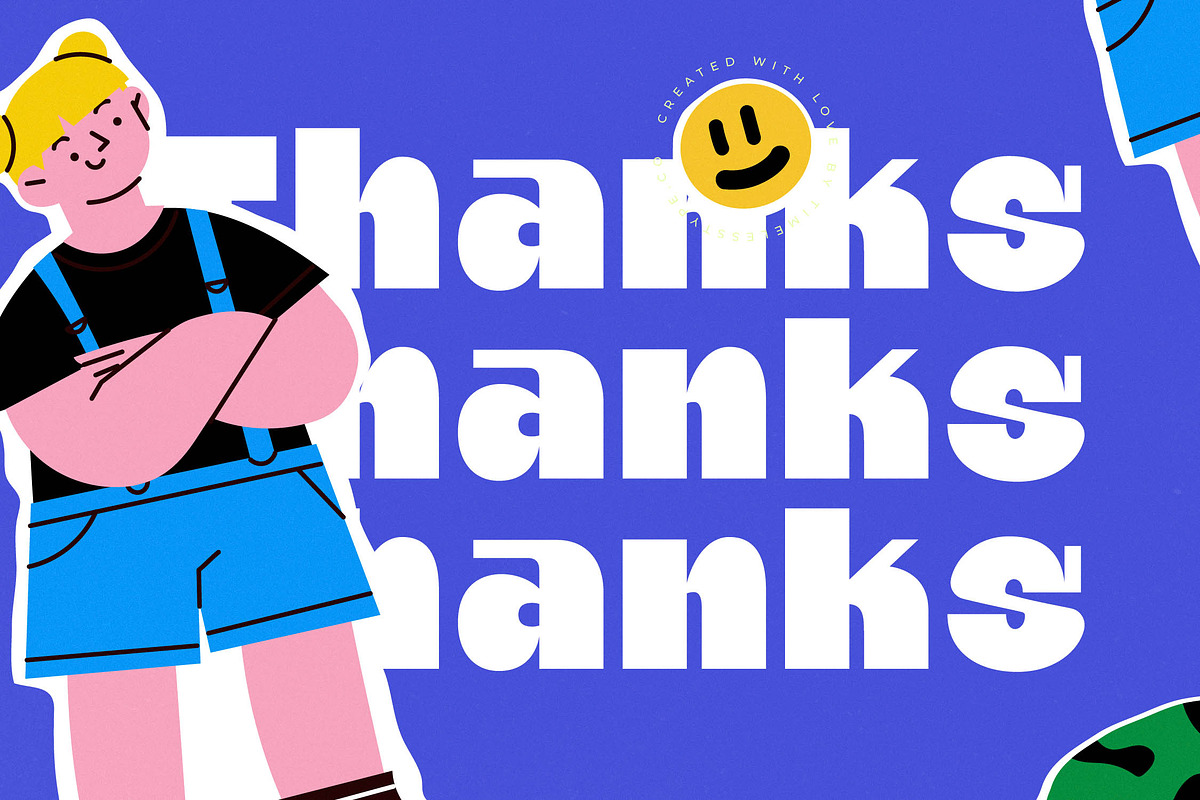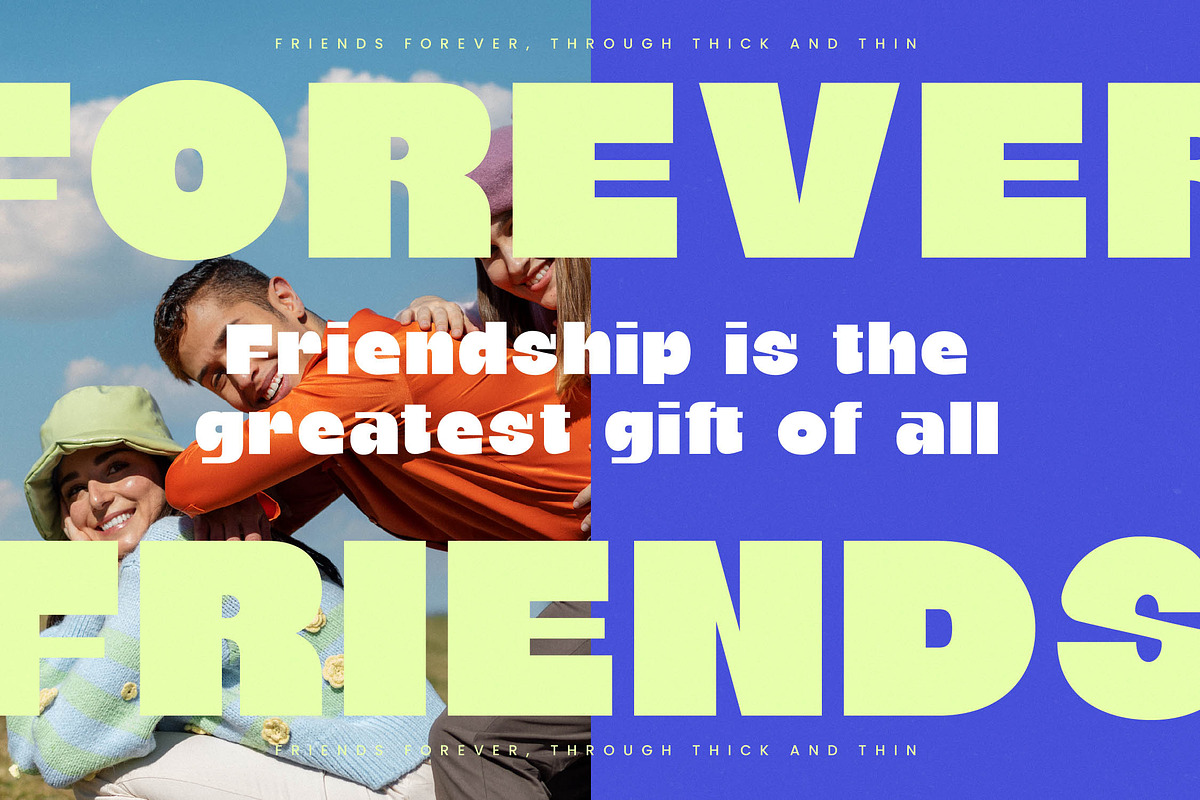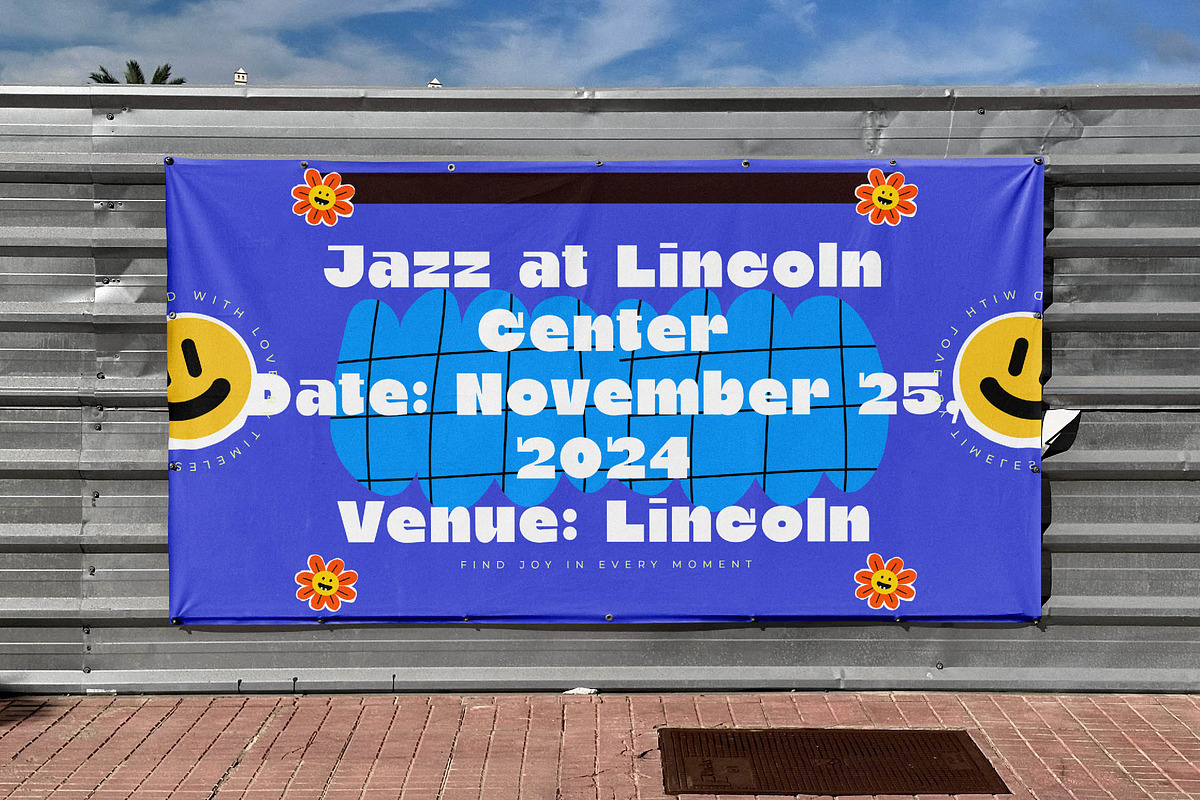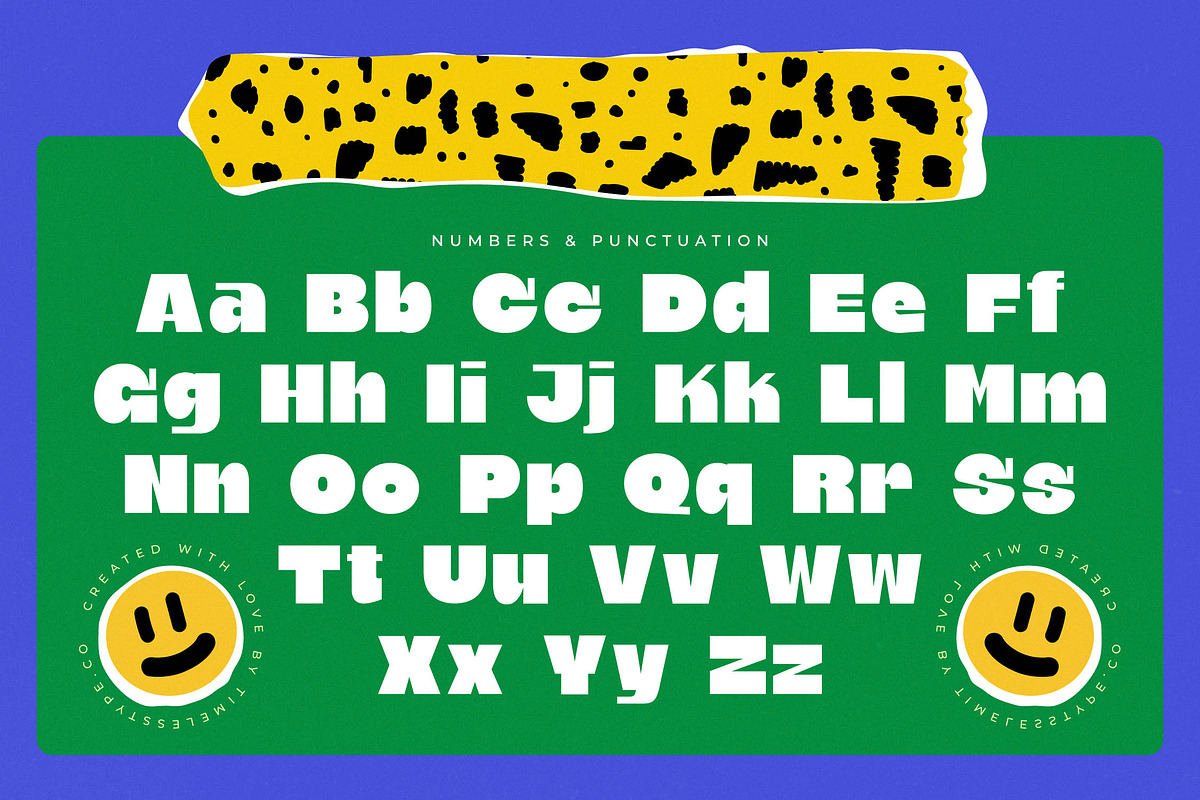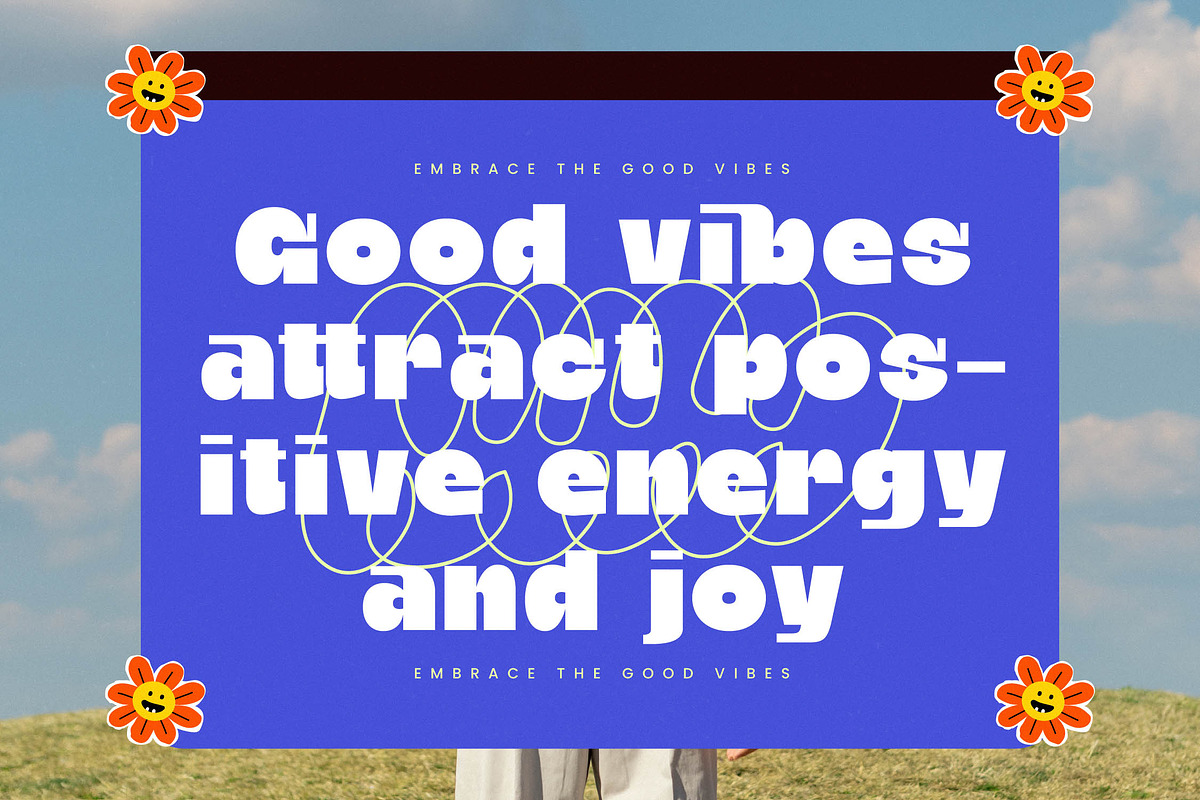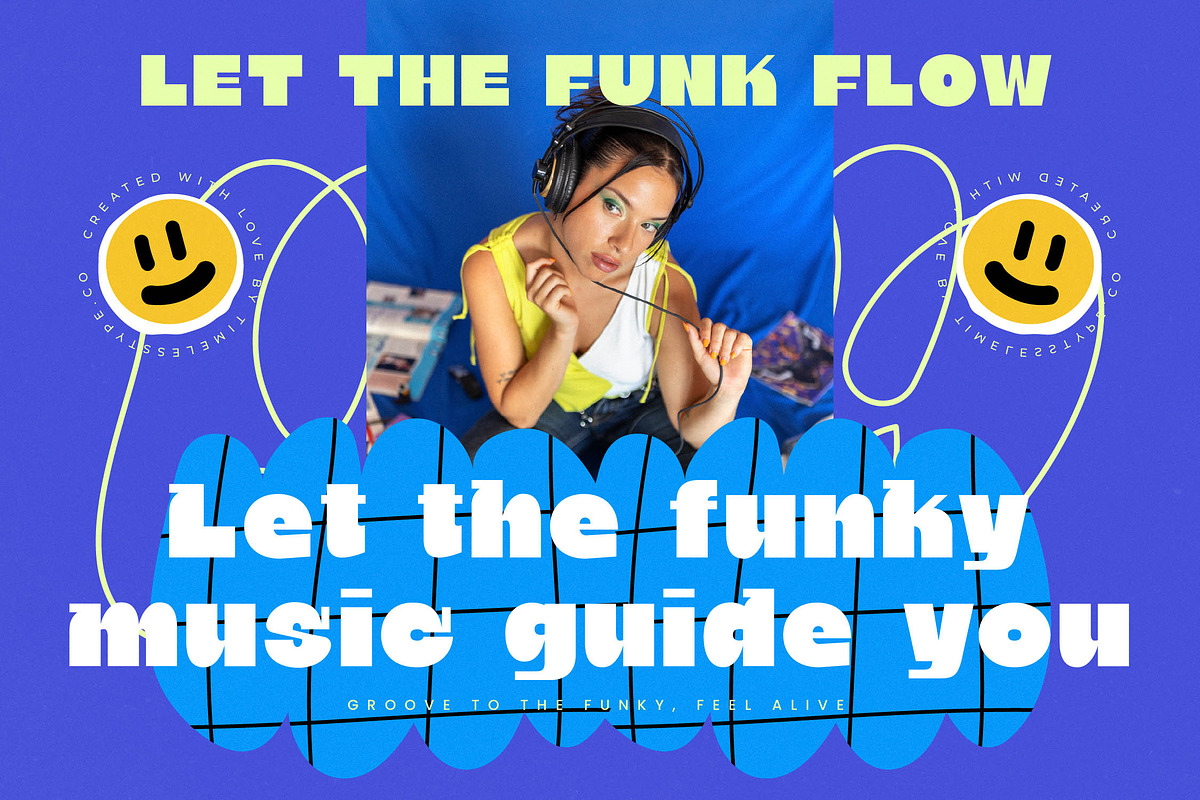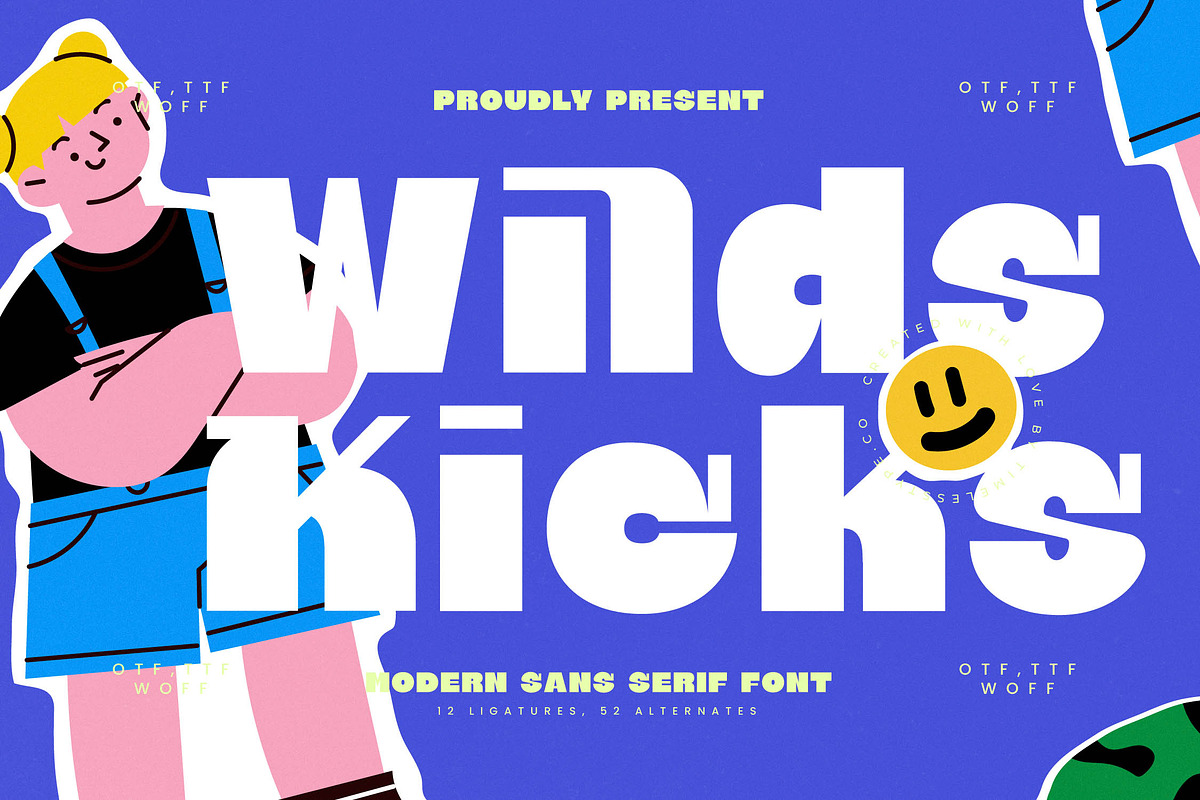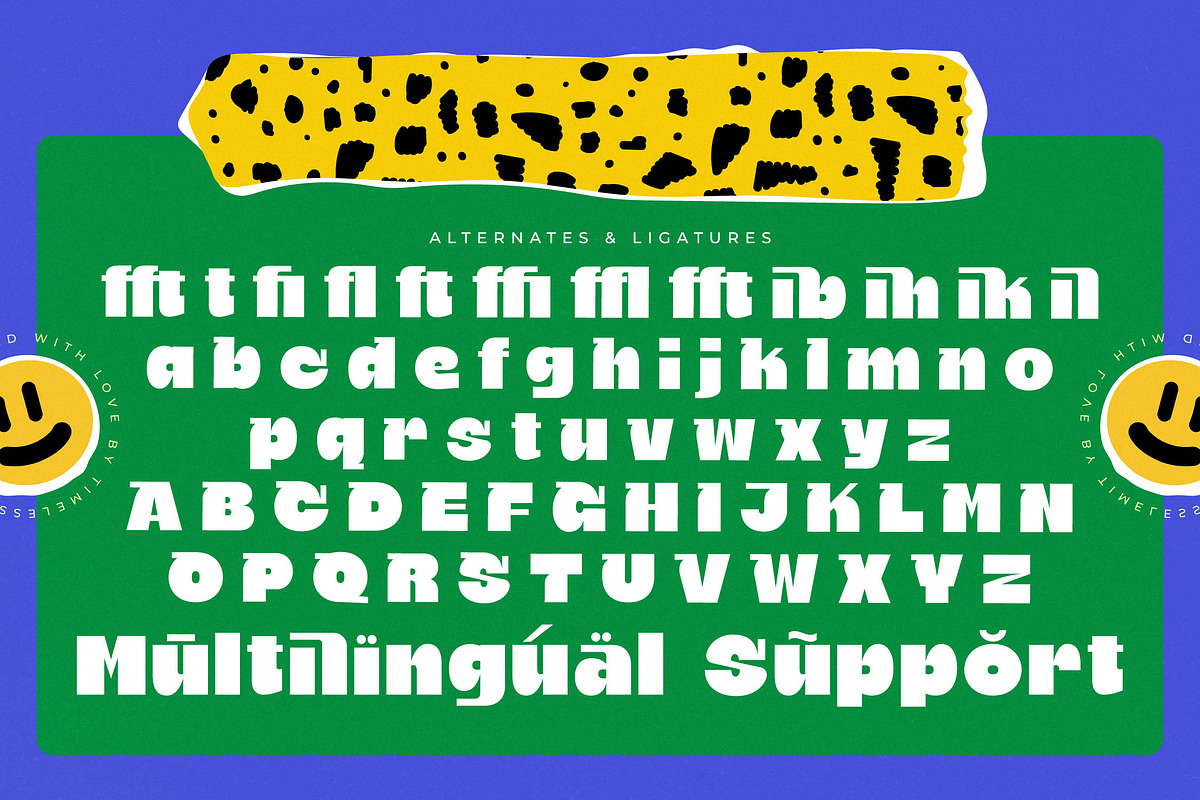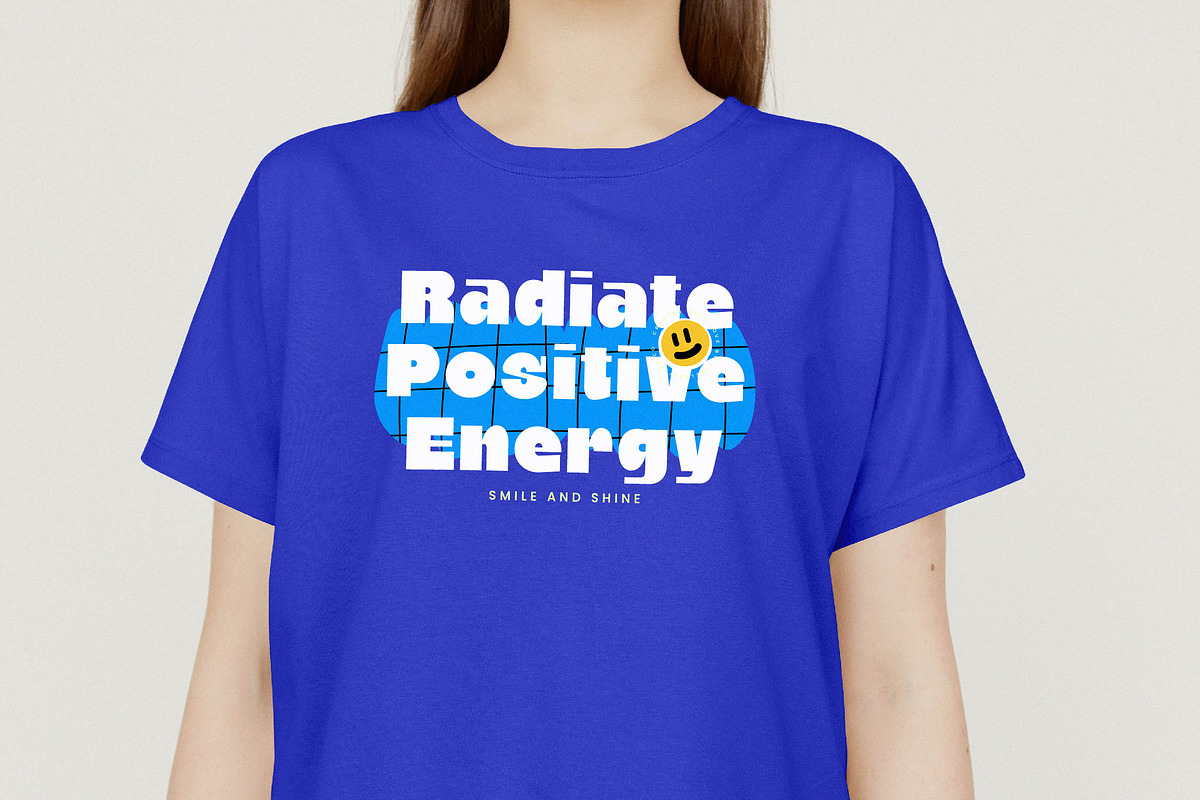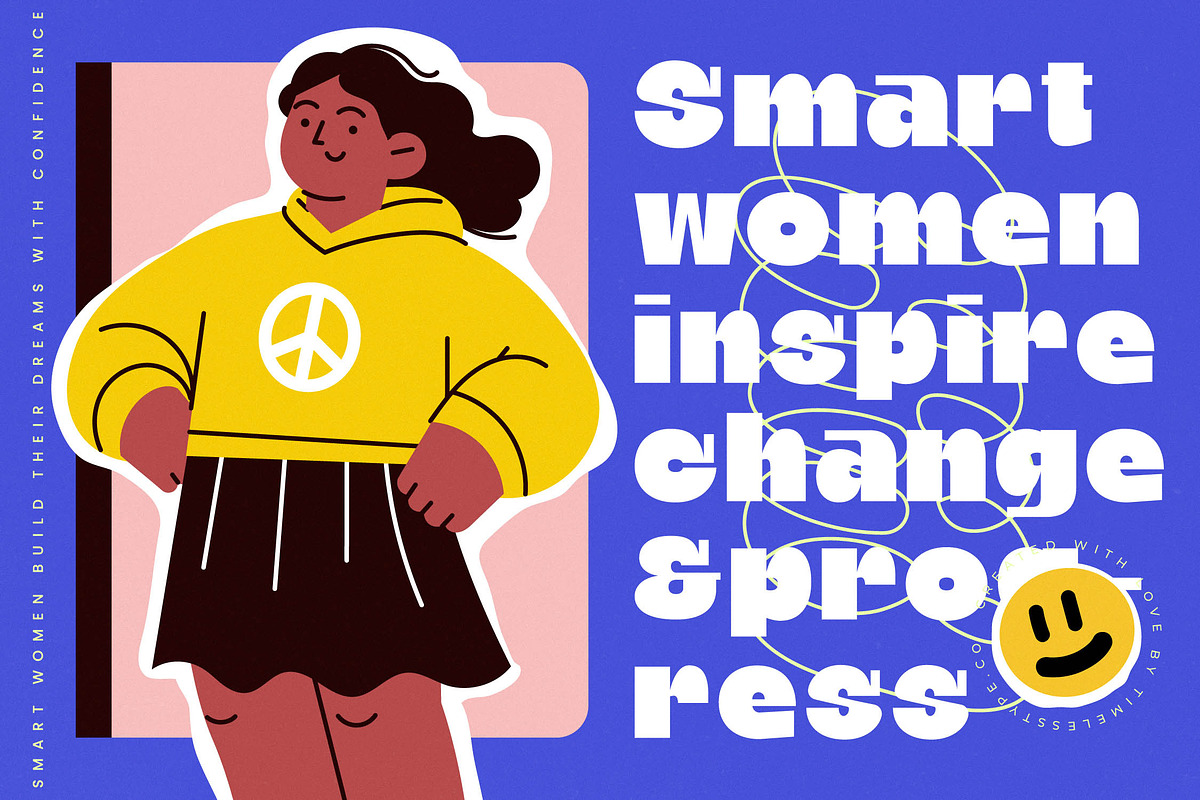
Wilds Kicks Modern Sans Serif
Wilds Kicks is a vibrant explosion of energy designed to breathe life into your most creative and daring projects. It captures a sense of fearless joy, making it the perfect choice for designers looking to break the mold with a touch of playful sophistication.
Drawing inspiration from the eclectic world of contemporary streetwear and the bold aesthetics of pop art, this typeface was born from a desire to merge fun with functionality. It echoes the rhythm of city life and the uninhibited spirit of modern youth culture, resulting in a visual language that is both familiar and fresh.
This modern serif display commands attention with its heavy weights and quirky terminals, ensuring every word has a significant branding impact. While it operates as a high-energy editorial font, its balanced proportions maintain a sense of luxury typography and high-contrast serif elegance that elevates it above standard display types.
Perfectly aligned with the current modern serif trend, this typeface taps into the demand for character-driven typography that prioritizes personality. It is a staple for the editorial display fonts movement, where bold shapes and unexpected curves define the visual landscape of digital-first brands.
Whether you are crafting a unique logo design or building a comprehensive identity for branding, this font delivers a standout performance. It is exceptionally versatile for editorial layouts, eye-catching packaging, and even avant-garde fashion campaigns or high-end wedding stationery that seeks a modern twist.
This professional package includes a rich set of 12 ligatures and 52 alternates to provide endless customization options for your type designs. With full multilingual support and a comprehensive range of international characters, it ensures your message resonates globally without any technical limitations.